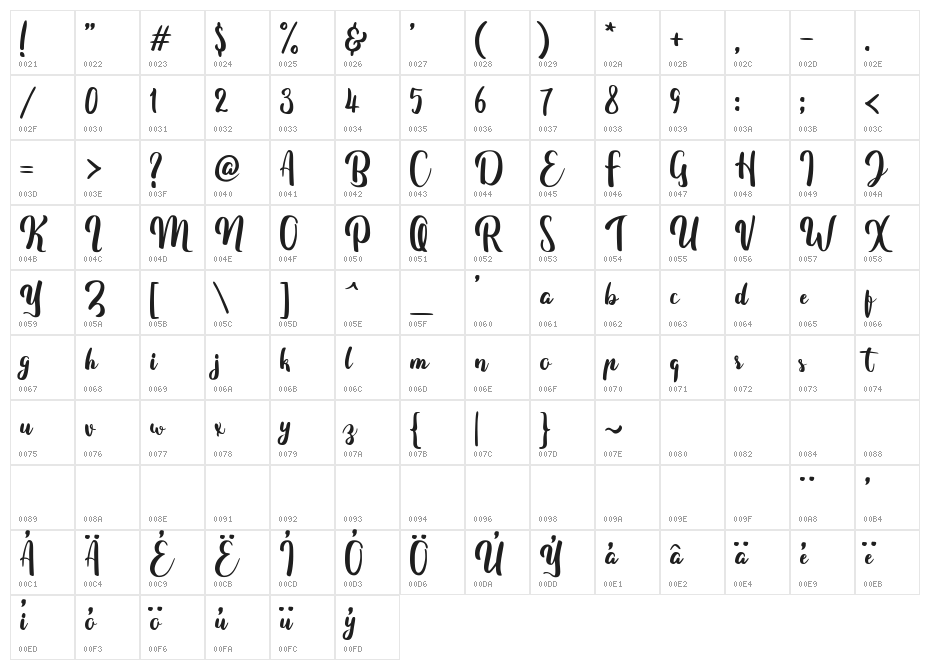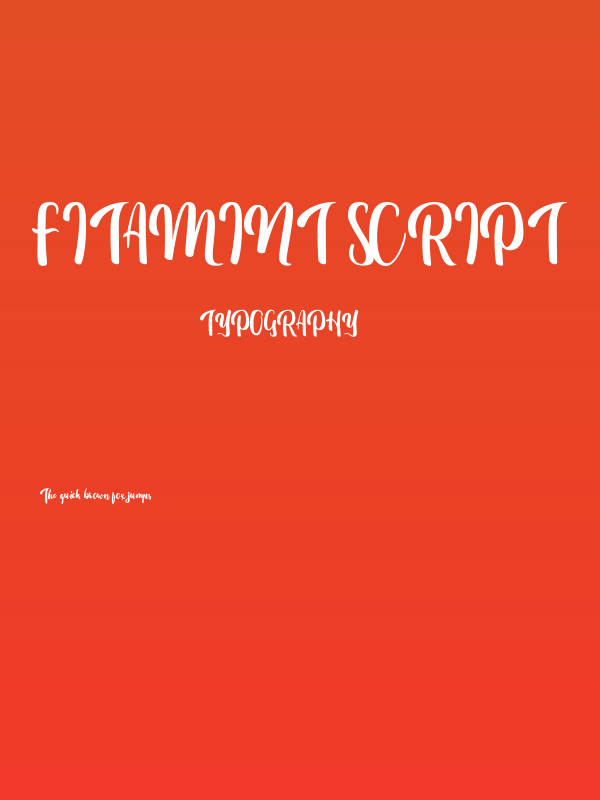
Fitamint Script Font
Fitamint Script Description
This font exhibits a lively and dynamic script style, characterized by its flowing, cursive letterforms that convey a sense of elegance and creativity. The uppercase letters are bold and slightly condensed, with playful loops and swashes that add a whimsical touch. The lowercase letters maintain a consistent rhythm, with smooth connections between characters, enhancing the overall fluidity. Numbers and special characters are designed to match the script's playful nature, ensuring a cohesive appearance across all text. The font's expressive style makes it ideal for projects that require a personal or artistic flair.
| Use Case | Logos, Headlines, Artistic projects |
| Proposed Projects | Ideal for wedding invitations, greeting cards, branding, and artistic projects. |